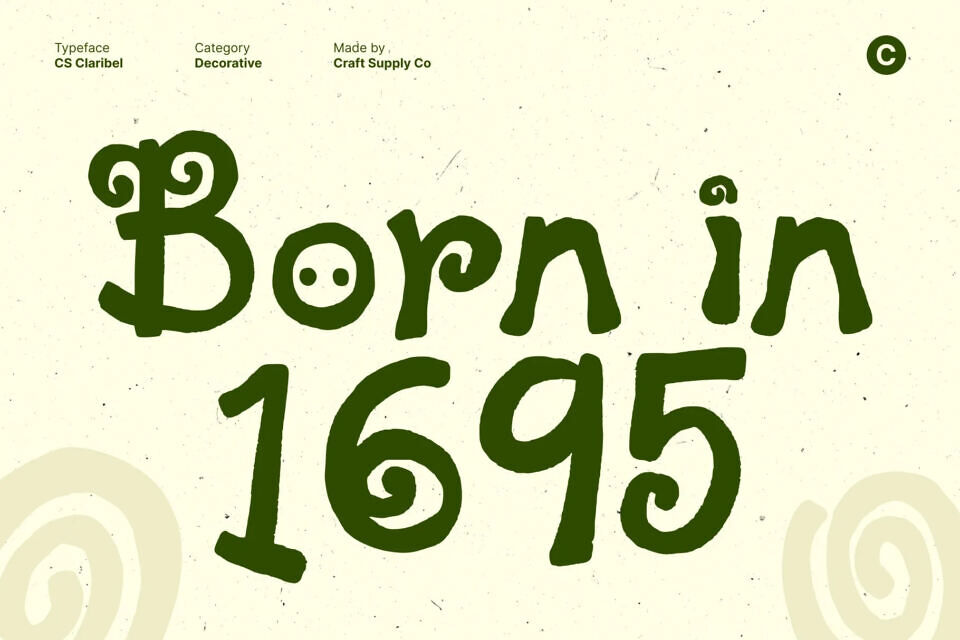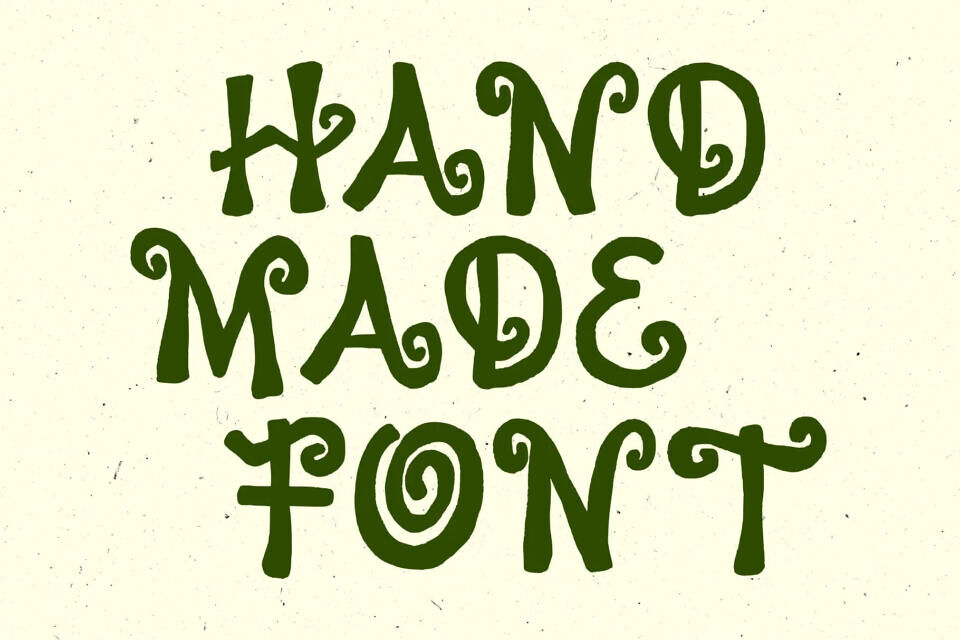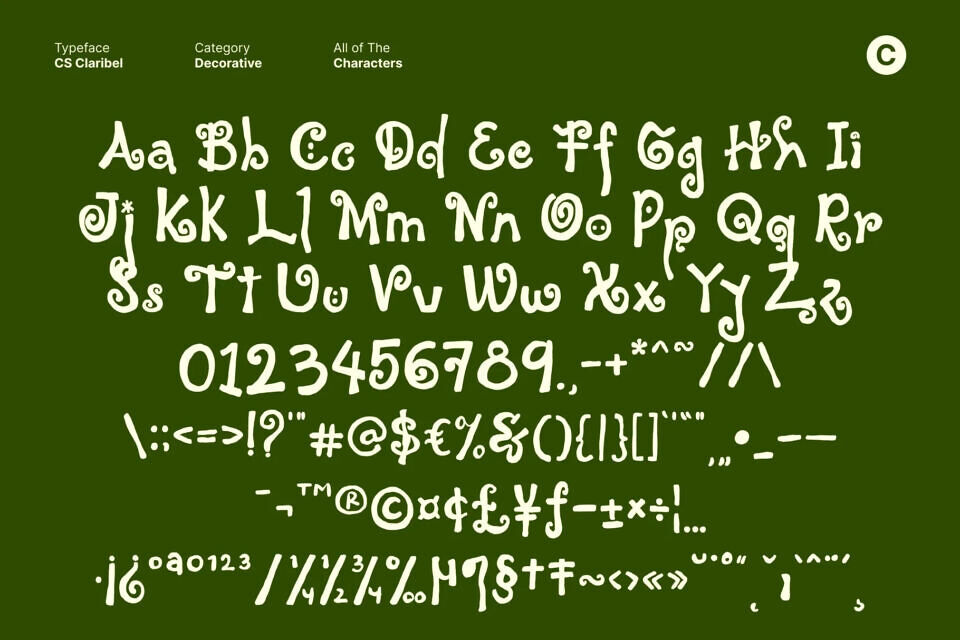
Claribel is an artistic and ornate decorative display font that brings fantasy inspired beauty to your designs. With its fluid handwritten style and whimsical character, this font evokes the feeling of creativity and imagination. Every curve and stroke is designed to feel expressive and enchanting.
Blending the charm of handwritten artistry with a touch of magical flair, this font creates a unique visual rhythm that feels alive and graceful. Its playful curves and flowing lines give it a storybook-like appeal, ideal for designers who want to infuse their work with creativity and dreamlike sophistication.